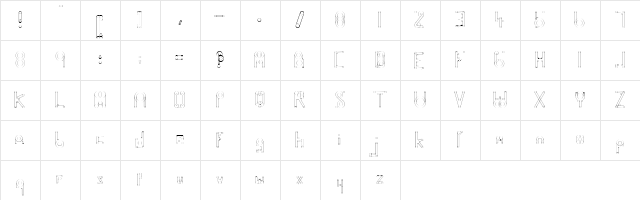
HelenBrown Outline Regular
| Foundry | Bradley Consulting Ltd |
| Designer | Robert G Walsh |
Design Context for HelenBrown Outline Typeface
HelenBrown Outline is built around its visual character rather than neutral utility — its distinctive forms are designed to make an impression at display sizes.
Font Pairing: Pair with a clean neutral sans-serif for body copy to let HelenBrown Outline's character lead without overwhelming the composition.
Pro Tip: Treat HelenBrown Outline as the centrepiece of your typographic hierarchy. One strong heading set in a decorative face can carry an entire layout.